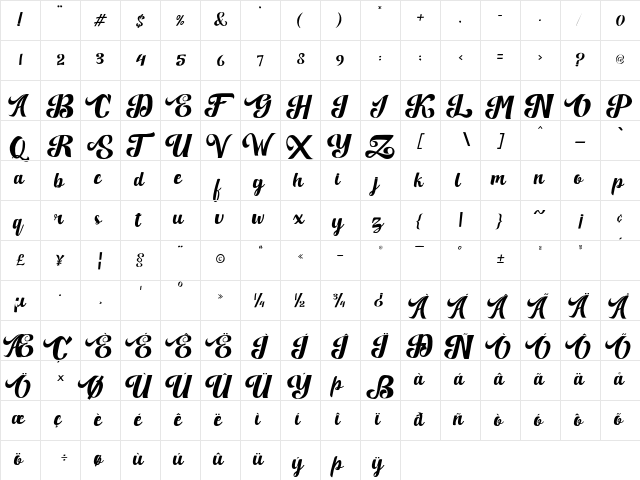
Quillotha Regular
| Foundry | Nur Solikh / Flamde Studio |
| Designer | Nur Solikh |
Design Context for Quillotha Typeface
Quillotha is a composed and adaptable typeface that performs quietly and consistently across a wide range of design contexts.